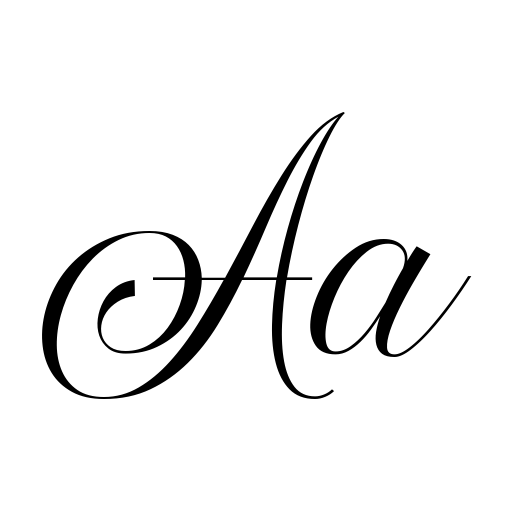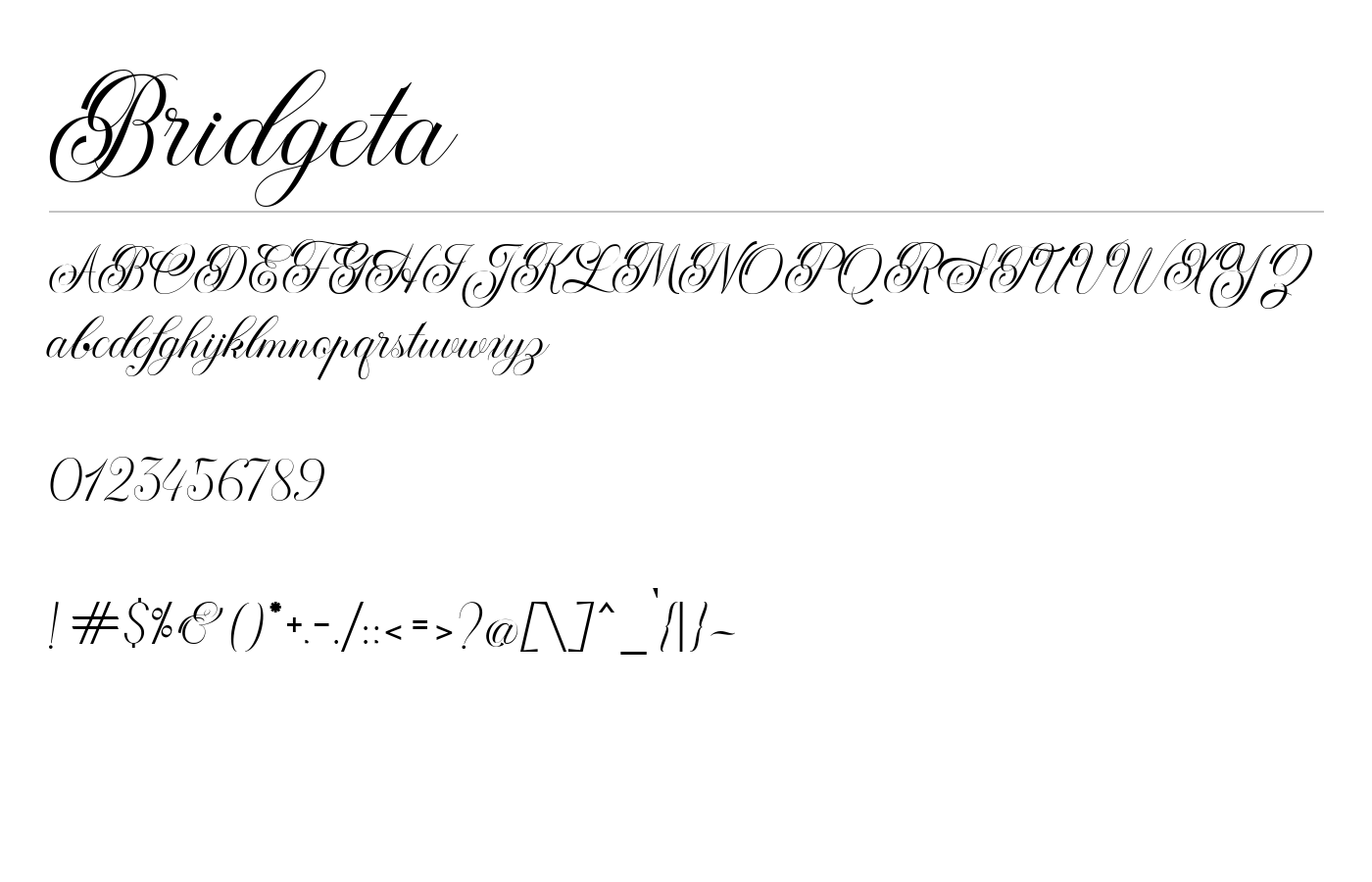
Bridgeta is an elegant script font characterized by its delicate, flowing strokes and high contrast between thick and thin lines. Its refined, calligraphic style with intricate swashes conveys a sense of luxury and sophistication, making it perfect for wedding invitations, branding, and upscale editorial use where a graceful and artistic touch is desired. This font shines best in large sizes for headlines or logos, emphasizing its decorative flair while maintaining readability.
Bridgeta Font
About Bridgeta Font
| Designer | Nurul Kamal |